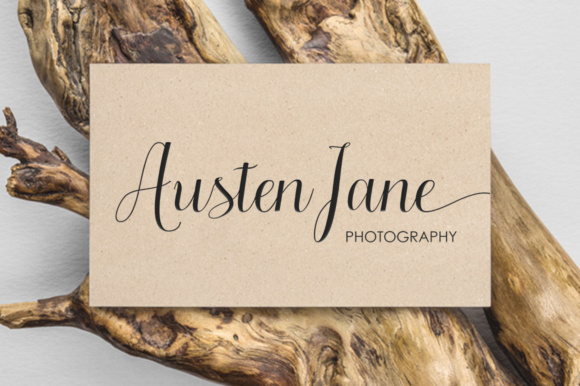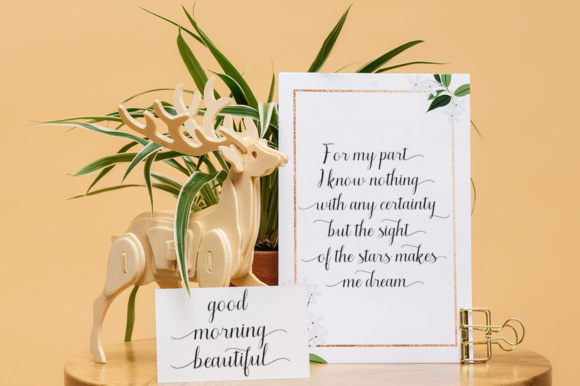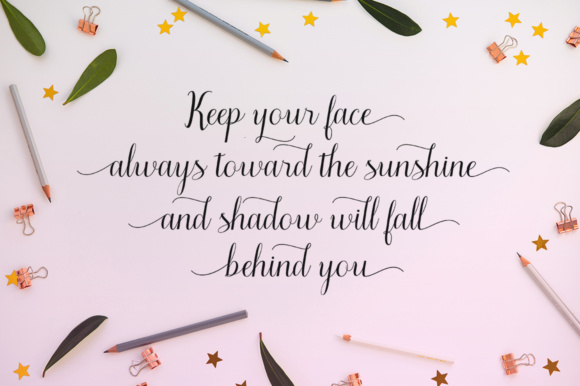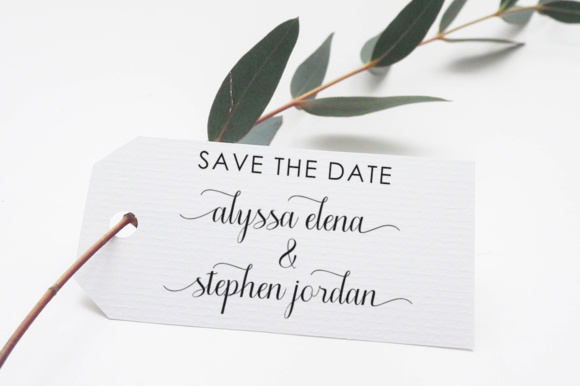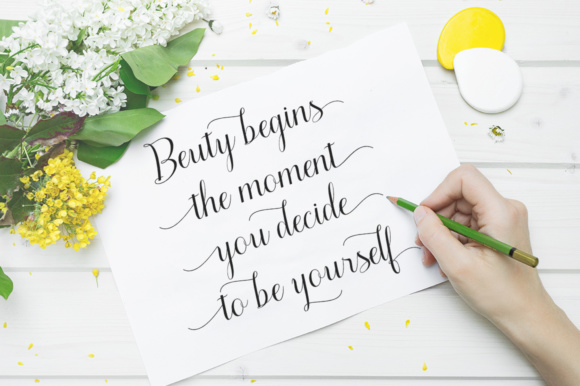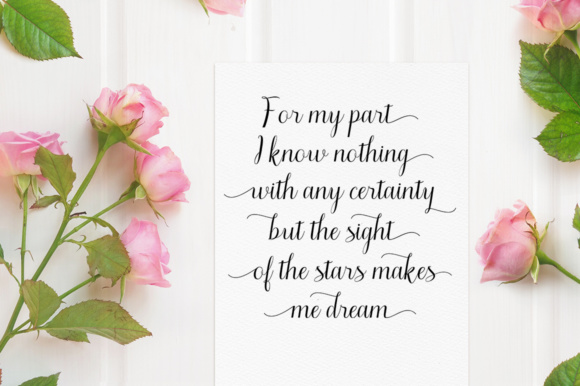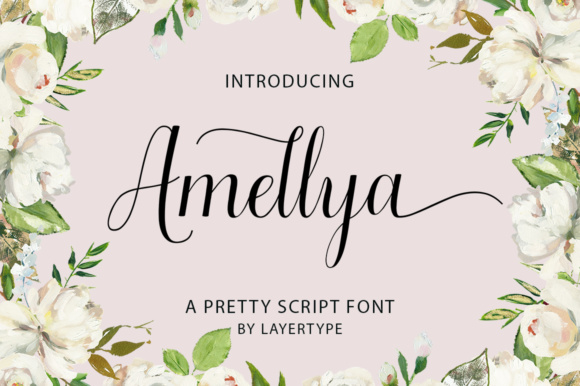
Introducing Amellya Script Font: The Perfect Blend of Modernity and Elegance
In the world of typography, script fonts have always been a popular choice for designers and crafters looking to add a touch of elegance and sophistication to their projects. One such font that has been making waves in the design community is Amellya Script Font. This modern script font boasts an irregular baseline, giving it a unique and trendy vibe that’s perfect for a variety of creative applications.
What Makes Amellya Script Font Stand Out?
Amellya Script Font is a relatively new addition to the world of typography, but it has quickly gained popularity among designers and crafters alike. So, what sets it apart from other script fonts? For starters, its irregular baseline gives it a distinctive, hand-drawn feel that’s both modern and feminine. This makes it an excellent choice for projects that require a touch of whimsy and personality.
Another notable feature of Amellya Script Font is its versatility. Whether you’re working on a wedding invitation, a thank you card, a quote, or a logo, this font is sure to make your project stand out. Its elegant and flowing lines make it perfect for use in ink or watercolor designs, adding a touch of sophistication and refinement to any project.
Perfect for Wedding and Party Decor
Wedding planners and party decorators, rejoice! Amellya Script Font is an excellent choice for creating beautiful and eye-catching wedding invitations, save-the-date cards, and party decor. Its feminine and elegant style makes it perfect for use in wedding stationery, and its irregular baseline adds a touch of whimsy and romance.
Imagine using Amellya Script Font to create stunning wedding invitations, complete with intricate details and beautiful flourishes. The font’s modern and trendy vibe will add a touch of sophistication to your wedding stationery, making it truly unforgettable. Plus, its versatility means you can use it for a variety of other party decor elements, such as banners, garlands, and more.
Great for Logos and Branding
Amellya Script Font is not just limited to wedding and party decor; it’s also an excellent choice for logos and branding. Its unique and modern style makes it perfect for businesses looking to create a distinctive and memorable brand identity.
Whether you’re starting a new business or rebranding an existing one, Amellya Script Font can help you create a logo that’s both elegant and eye-catching. Its flowing lines and irregular baseline make it perfect for use in a variety of industries, from fashion and beauty to food and hospitality.
Tips for Using Amellya Script Font
Now that you’ve learned more about Amellya Script Font, here are some tips for using it in your projects:
- Use it for wedding invitations, thank you cards, and other party decor elements to add a touch of elegance and sophistication.
- Experiment with different ink or watercolor techniques to add a unique and artistic touch to your projects.
- Pair it with other fonts to create a striking contrast and add visual interest to your designs.
- Use it for logos and branding to create a distinctive and memorable brand identity.
Amellya Script Font is a modern and elegant script font that’s perfect for designers and crafters looking to add a touch of sophistication and whimsy to their projects. Its irregular baseline and flowing lines make it perfect for use in ink or watercolor designs, and its versatility means you can use it for a variety of creative applications.
Whether you’re working on a wedding invitation, a logo, or a party decor element, Amellya Script Font is sure to make your project stand out. So why not give it a try and see the difference it can make in your designs?